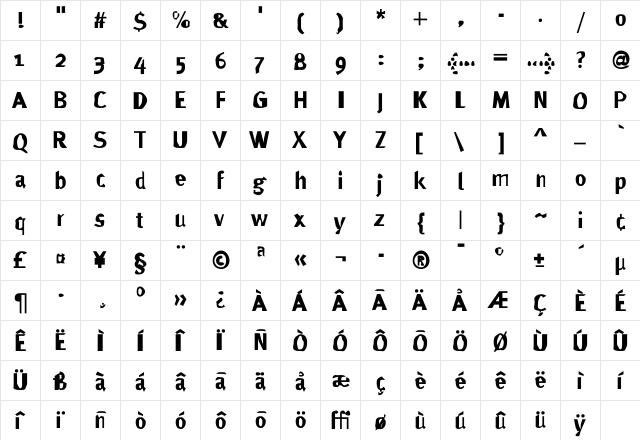
MetaPlus DemiBold
Design Context for MetaPlus Typeface
MetaPlus is a composed and adaptable typeface that performs quietly and consistently across a wide range of design contexts. The heavy weight commands attention and anchors typographic hierarchies.